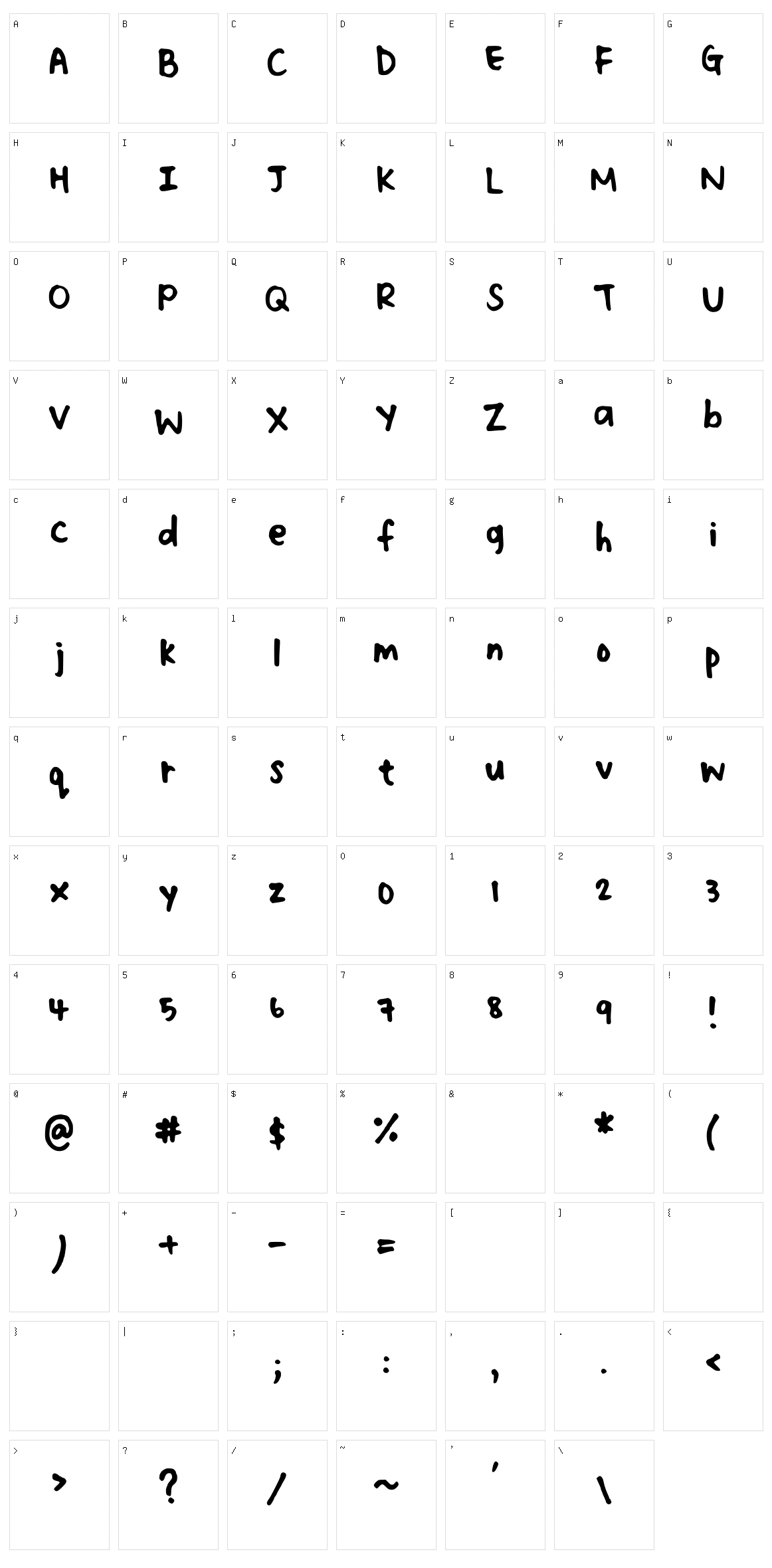
The free font Faith Handwriting is carefully designed by Yicong Faith, showcasing a thoughtful balance of creativity and usability and falls under the Script font style. When you download the ZIP file, it contains only 11.71 KB of font files, making it lightweight and quick to download. Please review the license details below to understand permitted usage and distribution rights. If license information is not available, we recommend using this font for personal projects only or contacting the author directly for commercial usage permissions.